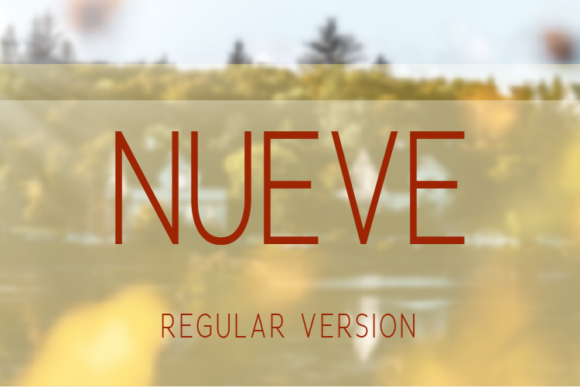
**Nueve: The Epitome of Elegance and Clean Lines**
There's a font that stands above the rest, a font that exudes elegance, modernity, and sophistication - Nueve. With its crisp lines, minimalist form, and attention to detail, Nueve is not just a font; it's a gateway to artistic expression.
**Versatile and Compelling**
Nueve is a versatile font family, meticulously crafted to meet the demands of various design projects. Whether you're creating a striking logo for your business, crafting eye-catching headlines for your magazine, or enriching your videos with captivating titles, Nueve has the power to transform your vision into a captivating masterpiece.
**From Weddings to Websites, Nueve is Your Design Ally**
Nueve is perfect for those memorable occasions. Imagine your wedding invitations adorned with Nueve's refined characters, your special day elevated to new heights of elegance. Or bring your website to life with Nueve's clean and contemporary style, captivating your visitors with an unforgettable online experience.
**Unlock Your Creativity with Nueve**
With Nueve, you can unleash your boundless creativity, turning ordinary designs into extraordinary works of art. Its beauty lies in its versatility, allowing you to weave your imagination into every project. From product packaging that captivates customers to clothing designs that express your individuality, Nueve is your trusted companion in the realm of creative expression.
**A World of Possibilities Awaits**
Nueve is not just a font; it's an invitation to explore a world of boundless possibilities. With its timeless charm, it elevates your designs, captivating audiences and leaving a lasting impression. Discover the power of Nueve today and transform your creative journey into an extraordinary adventure.